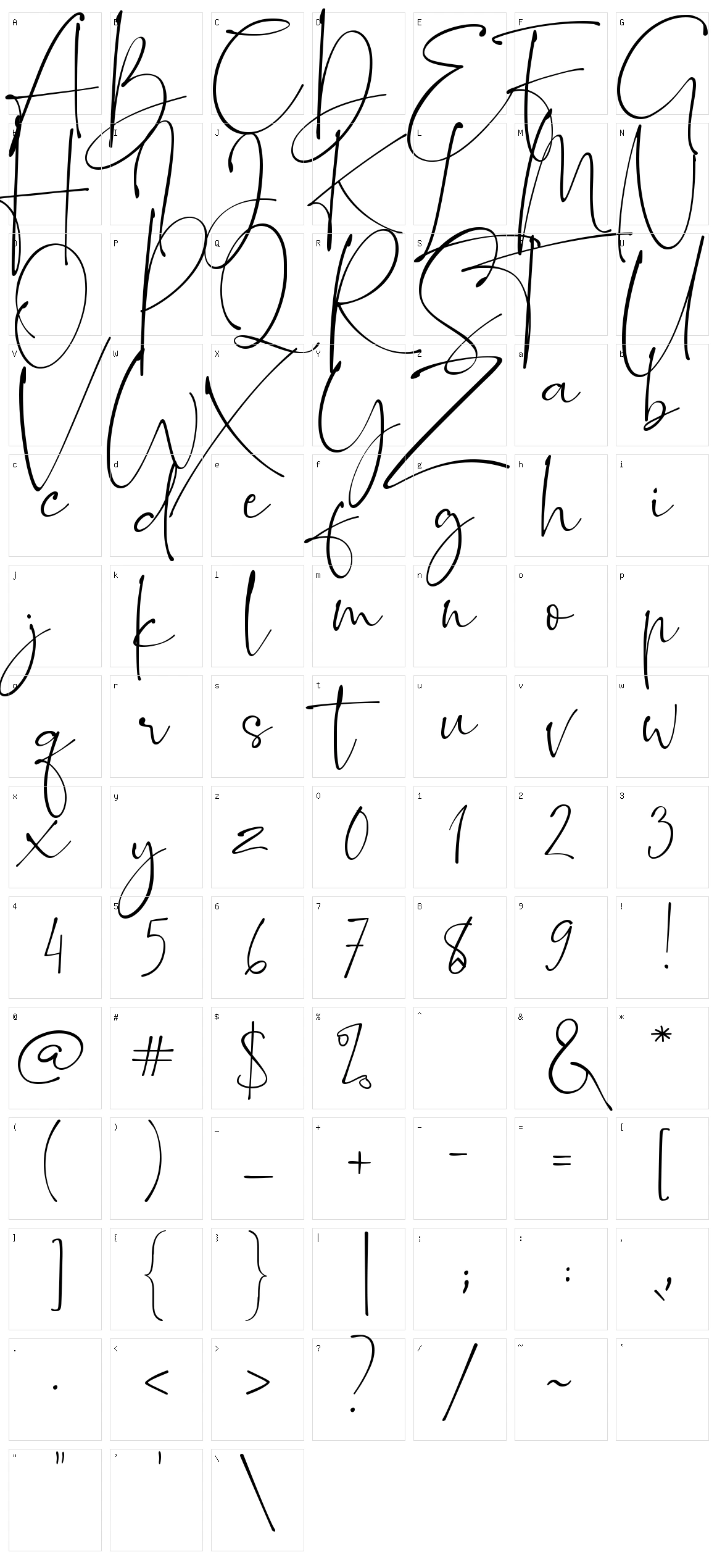
The free font Romantically is carefully designed by Abo Daniel Studio, showcasing a thoughtful balance of creativity and usability and falls under the Script font style. When you download the ZIP file, it contains only 55.22 KB of font files, making it lightweight and quick to download. Please review the license details below to understand permitted usage and distribution rights. If license information is not available, we recommend using this font for personal projects only or contacting the author directly for commercial usage permissions.